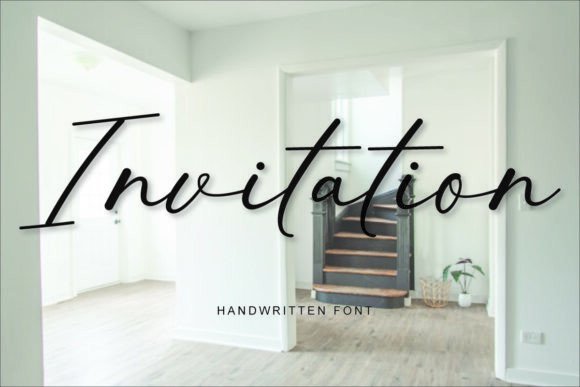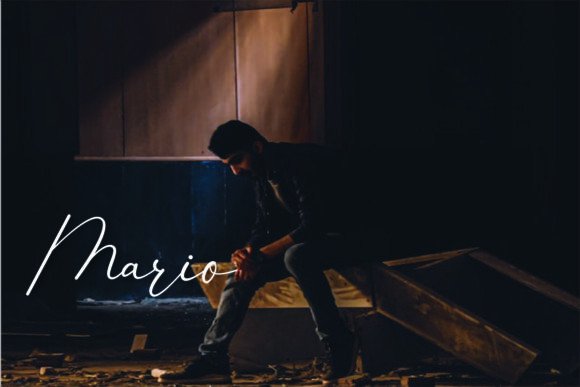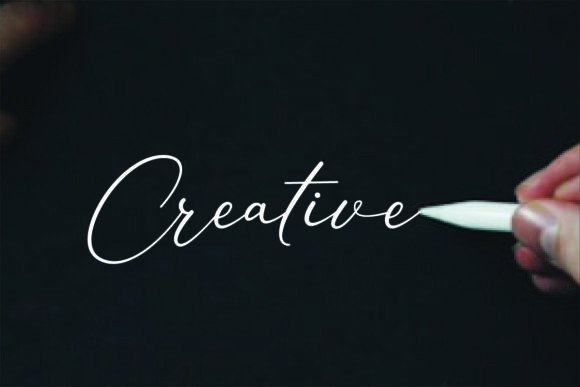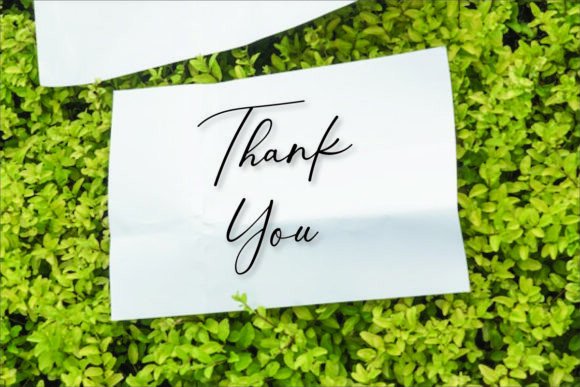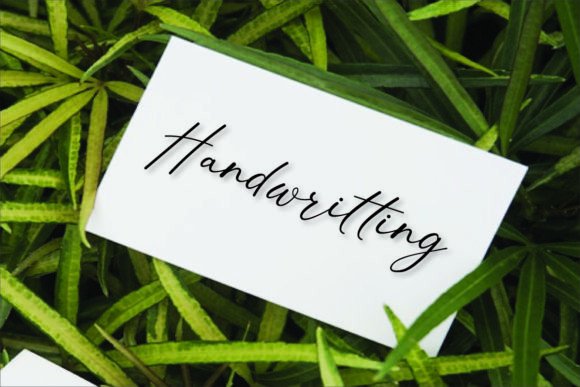
Creating Something Special: The Power of Invitation Font
Have you ever sat down with a blank sheet of paper, a pen, and a spark of creativity, only to have an idea burst forth into a beautiful, handwritten design? It’s a moment that every designer knows and loves – the thrill of bringing a concept to life with the perfect combination of style and personality.
For those magical moments, you need a font that can keep up with your vision. Enter Invitation Font, a sweet and cursive handwritten font that adds a touch of elegance and whimsy to any design. Whether you’re working on a branding project, creating a wedding invitation, or simply want to add some romance to a greeting card, Invitation Font is the perfect partner in crime.
With Invitation Font, you can elevate your designs from ordinary to extraordinary, giving your clients and customers a memorable experience that will leave them smiling. Its versatility and charm make it an invaluable addition to any designer’s toolkit, and we can’t wait to explore its possibilities with you.
Invitation Font Key Features
- Unique Characteristics: This font features elegant, cursive script lines and subtle flourishes, making it ideal for creating formal and luxurious invitations, wedding stationery, and special event materials.
- Scalability: The font’s design ensures it remains legible and visually appealing at various font sizes, from small text to large headlines.
Designer Review: Invitation Font
Overall, I think the Invitation Font is a lovely choice for a wedding invitation or any other formal event. ✨ The flowing script letters evoke a sense of elegance and sophistication, perfect for creating a memorable impression. The font is highly legible, making it easy to read, even at smaller font sizes.
- Beautifully crafted script letters that add a touch of whimsy to any design ✨
- Highly legible, even at smaller font sizes
However, there are some limitations to consider: ⚠️ The font is not suitable for digital displays, as it may appear blurry or pixelated. Additionally, the font is not designed for use in large block texts, which can make it difficult to read.
In terms of overall impression, I think the Invitation Font is a solid choice for formal events. While it may have some limitations, its unique charm and elegance make it a great option for those looking to create a memorable impression.
Tips for Getting the Most Out of the Invitation Font
Use the Invitation Font in conjunction with elegant graphics and images to create a sophisticated invitation.
Experiment with different font sizes and styles to add emphasis and visual interest.
Use the font in combination with other elegant fonts to create a unique and beautiful design.
The Invitation Font is commonly used for:
Wedding invitations
Baby shower invitations
Anniversary invitations
Any other occasion that requires a formal and elegant invitation.
Alternatives to Invitation Font
Playfair Display is a luxurious and elegant serif font perfect for high-end invitations, weddings, and special occasions. It features intricate details and ornate flourishes, making it ideal for formal events. Compared to Invitation Font, Playfair Display is more formal and sophisticated, with a more vintage feel.